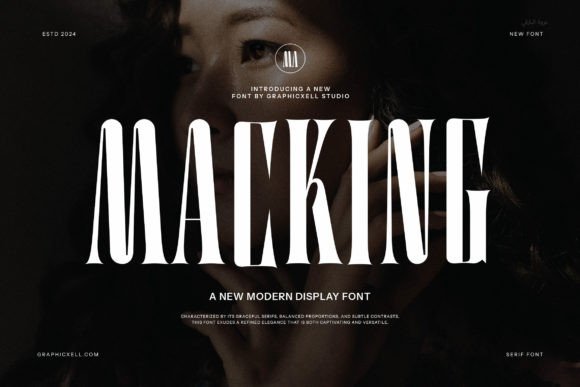
Choosing the Right Typeface: Macking for Modern Web Design
I was working on a boutique online store redesign, aiming to create a clean yet stylish brand identity. The challenge was to balance elegance with approachability—something that felt modern but not too flashy. I needed a typeface that could carry the weight of product descriptions while still feeling inviting and trustworthy. That’s when I came across Macking. It wasn’t just another serif font; it had a personality that stood out.
The Visual Appeal of Macking
Macking is a modern serif typeface that blends sophistication with charm. Its delicate curves and balanced proportions give it a refined look, making it ideal for digital projects that require both visual interest and readability. Unlike some heavier serifs that can feel outdated, Macking feels contemporary and fresh. It’s the kind of font that makes text feel more intentional, guiding the eye smoothly through content without overwhelming it.
I tested Macking in the hero section of the boutique site. Placed over a high-quality image banner, it immediately caught attention without overpowering the visual elements. The subtle contrast between the bold headings and the softer body copy created a nice hierarchy. It worked well with the brand’s aesthetic—modern, elegant, and slightly whimsical.
Using Macking in Real-World Digital Layouts
Macking is versatile enough to be used in multiple areas of a website. For instance, I used it as the primary font for headers and call-to-action buttons. Its clean lines made the buttons stand out, encouraging users to click. On the homepage, I paired it with a simple sans-serif font for body copy, creating a clear visual distinction between headline and supporting text.
For the product landing page, I used Macking in the title and subheadings. It added a touch of luxury without being too formal. I also considered how it would perform on mobile devices. I checked its legibility at smaller sizes and found it readable even on compact screens, which is crucial for responsive design.
Another area where Macking shone was in blog headers. The font’s elegance complemented the editorial tone of the content, making each post feel more curated and professional. It also worked well in promotional landing pages, where the goal was to make the message clear and compelling.
Readability and User Experience Considerations
When selecting a font like Macking, readability is key. I tested it against different background colors and image overlays to ensure it remained legible. On dark backgrounds, I adjusted the contrast to maintain clarity. Light backgrounds, on the other hand, allowed the font to sit comfortably without competing with the surrounding content.
I also paid close attention to how Macking performed in small spaces, such as buttons and navigation menus. Despite its decorative elements, the font maintained good spacing and proportion, making it suitable for interactive elements. This is especially important for user engagement—readable text encourages users to interact with the site rather than leave due to poor typography.
Another consideration was the font’s performance in multilingual contexts. Since the boutique site catered to an international audience, I verified that Macking supported various languages. This ensured consistency across all content types, from product descriptions to customer reviews.
Font Pairing and Brand Consistency
Pairing Macking with complementary fonts helped reinforce the brand’s visual identity. I paired it with a clean sans-serif font for body copy, which provided a strong contrast while maintaining a cohesive look. This pairing worked well for both editorial-style content and more straightforward product listings.
I also explored using Macking as a decorative accent in social media graphics and campaign pages. Its unique curves made it perfect for headlines and taglines, adding a touch of personality without overshadowing the main message. However, I avoided using it for long blocks of text, as it could become visually heavy in larger volumes.
Technical Aspects and Licensing
Before implementing Macking on the live site, I checked its technical specifications. The font included multiple weights and styles, giving me flexibility in design choices. It was available as a webfont, ensuring compatibility with all major browsers and platforms. I also verified that the licensing terms were appropriate for commercial use, which was essential for the boutique’s online presence.
Considering performance, I ensured that the font files were optimized for fast loading. This was particularly important for the landing pages and product pages, where speed directly impacts user experience and conversion rates. By using efficient file formats and minimizing unnecessary styles, I kept the site lightweight and responsive.
Final Thoughts on Macking
Incorporating Macking into the boutique’s design was a decision that enhanced both aesthetics and functionality. It brought a level of sophistication that aligned with the brand’s vision while remaining accessible and engaging. Whether used for headers, buttons, or decorative accents, Macking proved to be a reliable choice for modern web design.
As a designer, I’ve learned that the right font can elevate a project from good to great. Macking offers that kind of impact—subtle yet powerful. It’s a great option for anyone looking to build a more polished online brand experience with a touch of modern elegance.